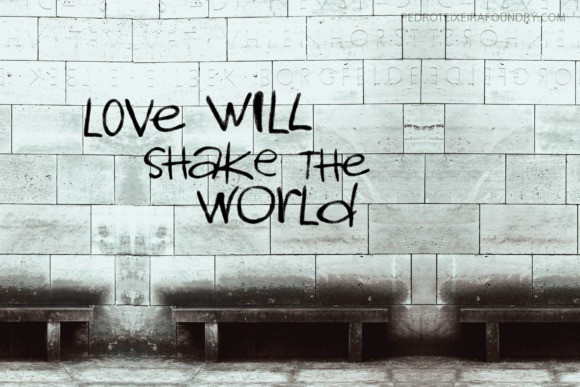
Graffiti PTx Font
Graffiti PTx Font This font was inspired by graffiti texts, and sentences on street walls. The intention is to give a style of old-school words spread on the walls around the world. This can be cool for a design of a poster, headlines, and so on.